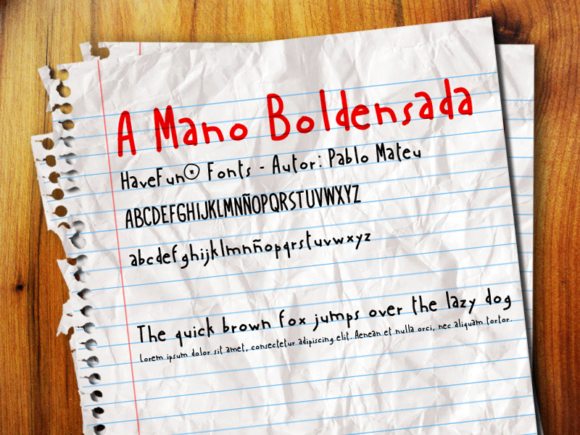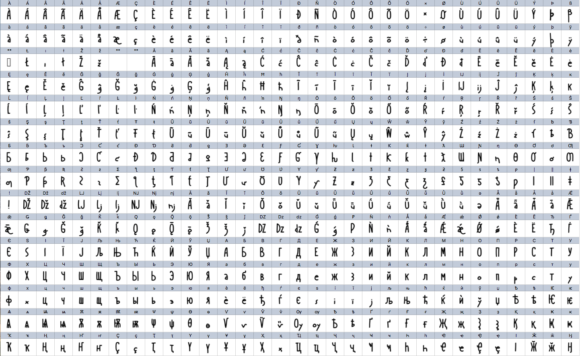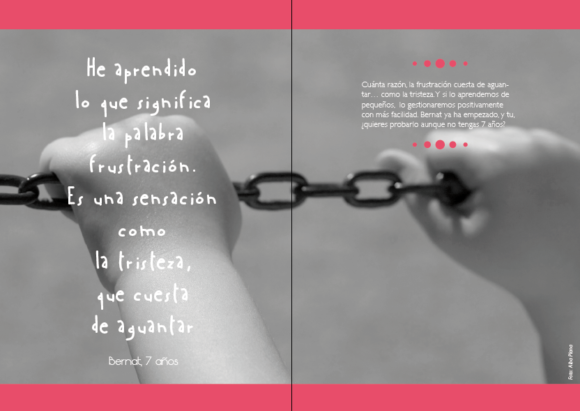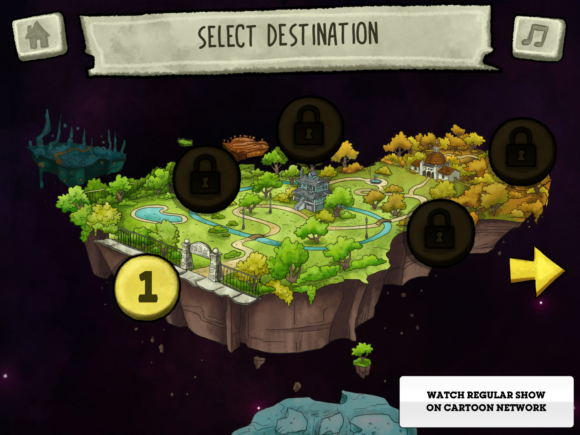
A Mano Boldensada Font
About A Mano Boldensada Font
A Mano Boldensada is a simple and practical typeface that simulates a child’s handwriting. It is ideal for story titles, indexes and short texts, however it also works perfectly in short paragraphs. It features all Cyrillic and Eastern European accents, symbols, and glyphs.